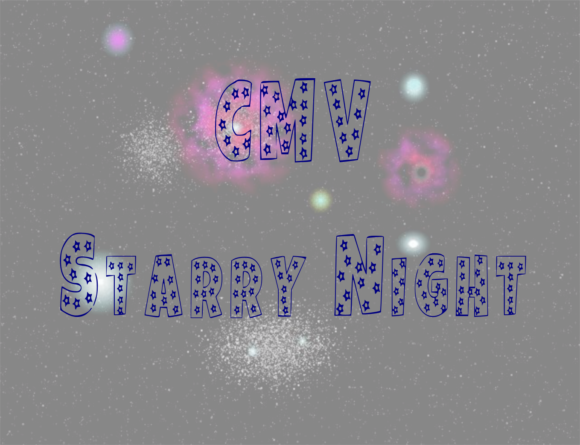
CMV Starry Night Font
Calling all whimsical and dreamy souls! Embark on an extraordinary journey with CMV Starry Night, a captivating display font that will illuminate your designs with a touch of celestial magic. Picture yourself crafting enchanting invitations that twinkle like a million stars, whimsical posters that transport you to a world of imagination, and social media posts that radiate with joyous abandon.
With CMV Starry Night, you're not just downloading a font – you're embracing a boundless realm of creativity. Its playful outlines dance across the page like constellations, inviting you to create designs that ignite wonder and spark dreams. Its charming stars, scattered with a whimsical touch, add an element of delight to every letter, making it perfect for adding a sprinkle of magic to any project.
Imagine your website headers shimmering with the brilliance of a starry sky, drawing visitors into an immersive experience. Let your logos twinkle with a touch of celestial charm, leaving an unforgettable mark on your brand. With CMV Starry Night, the possibilities are as vast and awe-inspiring as the night sky itself.
So, dear adventurers of the digital realm, seize the opportunity to infuse your designs with a touch of starry enchantment. Download CMV Starry Night today and let your creativity soar to new heights, where whimsical wonder and celestial inspiration collide in a symphony of artistic delight.